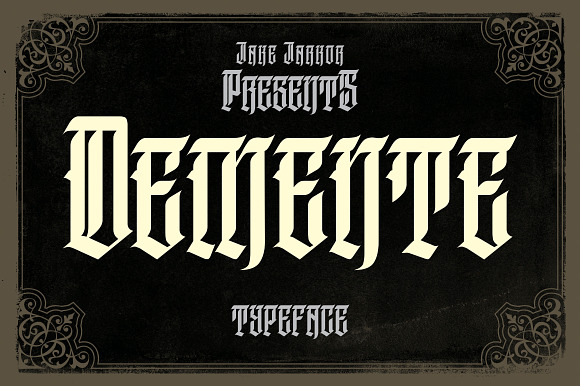
DEMENTE Font
DEMENTE Font is perfect for bold creative branding, experimental design projects, edgy entertainment venues, contemporary art galleries, alternative music labels, avant-garde fashion brands, provocative advertising campaigns, underground culture materials, artistic portfolios, rebellious youth brands, cutting-edge digital interfaces, and unconventional editorial design.
What makes DEMENTE Font exciting is its rebellious creativity that pushes the boundaries of conventional typography through daring letterforms that challenge expectations and embrace artistic freedom. This provocative typeface embodies the spirit of creative rebellion and artistic innovation, combining bold expression with sophisticated craftsmanship that resonates with audiences seeking authenticity, originality, and the courage to break traditional design rules. The font's audacious character and unconventional structure create immediate impact while maintaining the legibility essential for professional creative applications. Its revolutionary personality makes it perfect for brands that want to communicate innovation, artistic vision, and the transformative power of creative disruption in competitive markets.
The DEMENTE Font family includes regular, medium, and bold weights, featuring experimental alternates, avant-garde ligatures, and unconventional design elements. The character set incorporates artistic symbols, expressive numerals, and rebellious punctuation marks that enhance the font's creative character and provide designers with comprehensive experimental typography solutions for bold brand expressions.
Whether you're developing avant-garde brand identities, creating experimental marketing materials, or designing provocative communications, DEMENTE Font Free Download delivers the creative rebellion your unconventional projects demand. This premium typeface excels in applications where artistic authenticity and creative differentiation are crucial for brand positioning and audience connection in alternative creative markets. The font's experimental qualities work magnificently across artistic packaging, gallery displays, and digital platforms, making it an invaluable asset for designers serving underground and alternative culture industries. Creative collectives and rebellious brands choose this font for its ability to communicate artistic vision while maintaining professional quality and cultural credibility. The comprehensive character support includes artistic symbols and experimental glyphs, expanding its versatility for global alternative applications and multilingual creative communications. Professional designers appreciate its perfect balance of creative rebellion and functional reliability, ensuring projects remain both artistically compelling and commercially viable. When you implement this exceptional typeface in your experimental communications, you're selecting a typography solution that celebrates artistic freedom and creative rebellion, ensuring your brand connects with alternative audiences while maintaining the innovative credibility essential for success in competitive creative markets and underground industries that value originality, artistic expression, and the courage to challenge conventional design thinking and cultural norms through bold visual communication strategies.